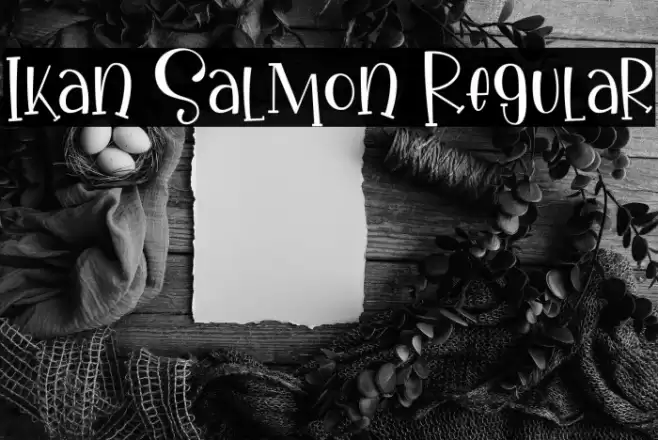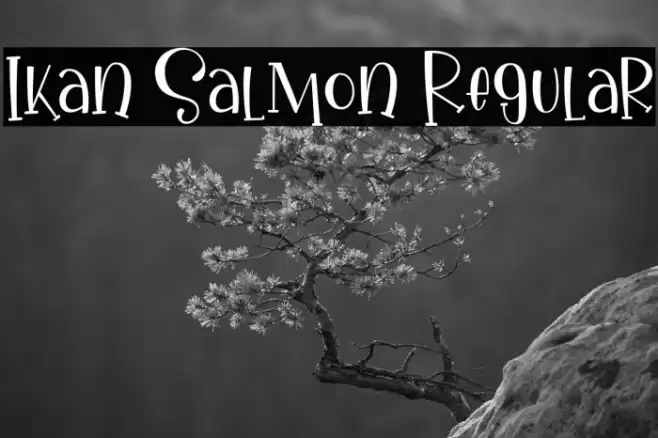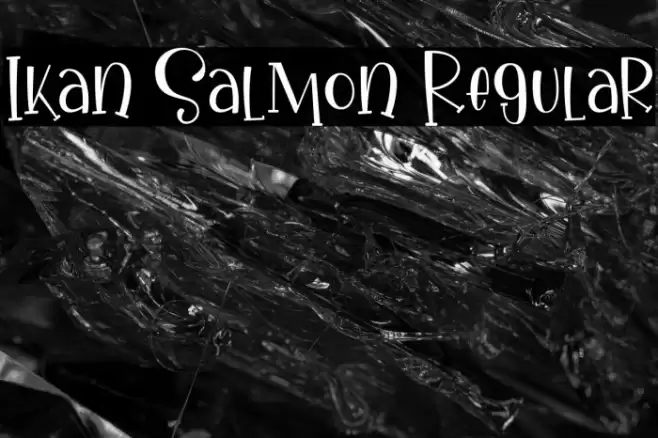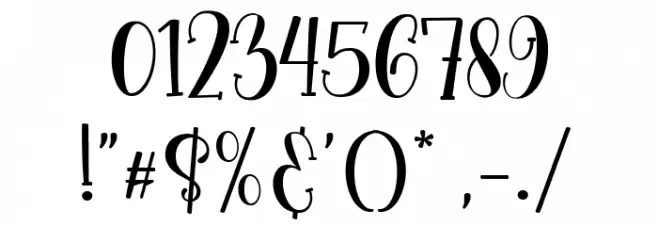
Ikan Salmon Regular Font
Ikan Salmon Regular Description
This font features a playful and whimsical style, characterized by its irregular and quirky letterforms. The uppercase letters are tall and slightly narrow, with varying stroke widths that add a dynamic feel. The lowercase letters maintain this playful aesthetic, with some characters having unique, unexpected curves and angles. The numerals are bold and distinct, matching the overall lively theme. Special characters are creatively designed, enhancing the font's decorative appeal. This font is perfect for projects that require a fun and engaging visual element.
A playful and whimsical font with irregular, quirky letterforms from Cartoon fonts.
- Proposed Projects: Ideal for children's books, playful branding, greeting cards, and creative posters.